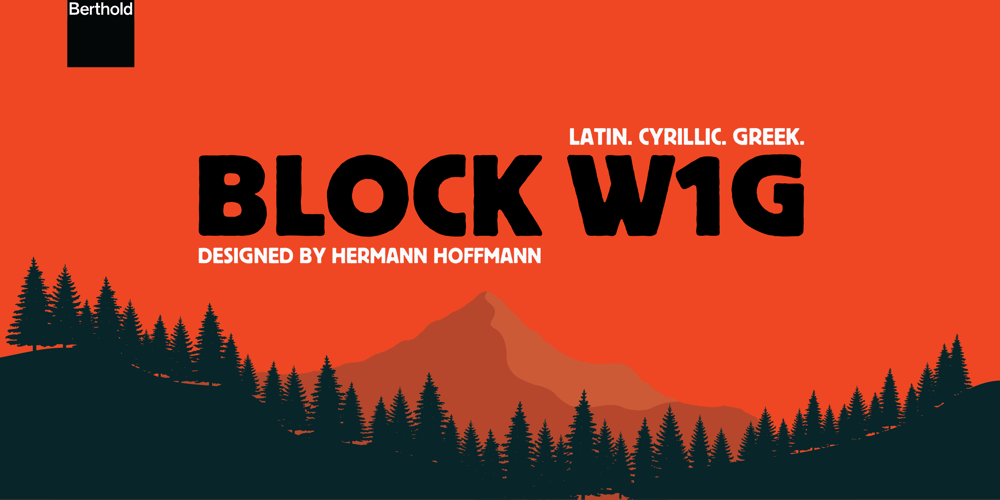
Berthold Block W1G Font Family was designed by Hermann Hoffmann and published by Berthold. Berthold Block W1G contains 8 styles and family package options. Designed by H. Hoffman, H. Berthold initially released Block in 1908. H. Berthold also released subsequent versions reworked by Hoffman through 1926. With its distinctive bold characters and very short descenders, Block was a staple for job printing in Germany for decades. In the late 1970s, H. Berthold added weights, including italics, to offer more flexibility.